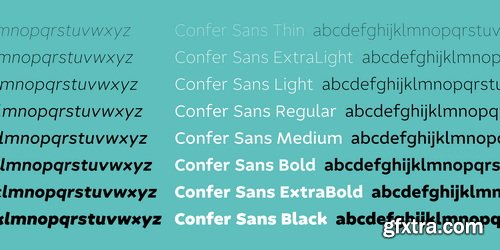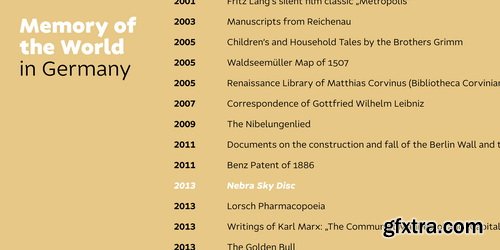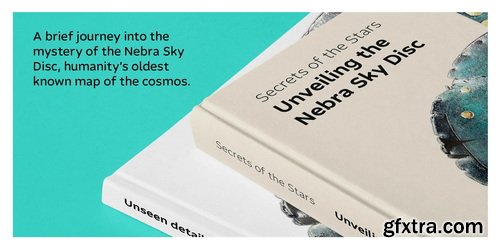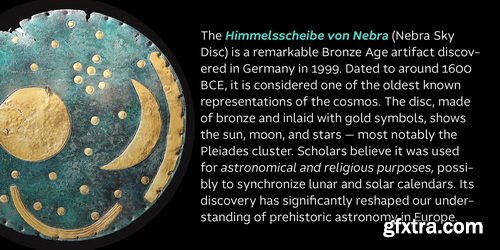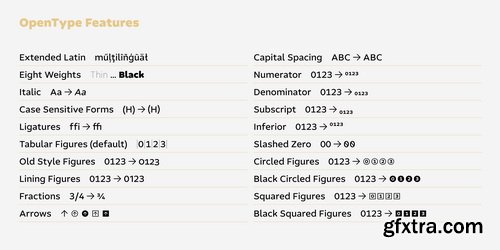
Confer Sans is Identity Letters’ answer to the predicament of the “perfect” sans-serif. It maintains the degree of digital perfection expected from a contemporary design while also looking at the human aspect of writing—celebrating the joy of the angular stroke ending. A humanist sans in the best sense: Sophisticated enough for professional, on-brand communication. Informal enough to reach people who refuse a cold neogrotesk. At 16 styles (8 weights plus italics) and ~700 glyphs, Confer Sans is ready for cutting-edge typesetting. This font family wants to be used in culture, education, packaging, branding, advertising—and ultimately, wherever humans are interconnected through communication.